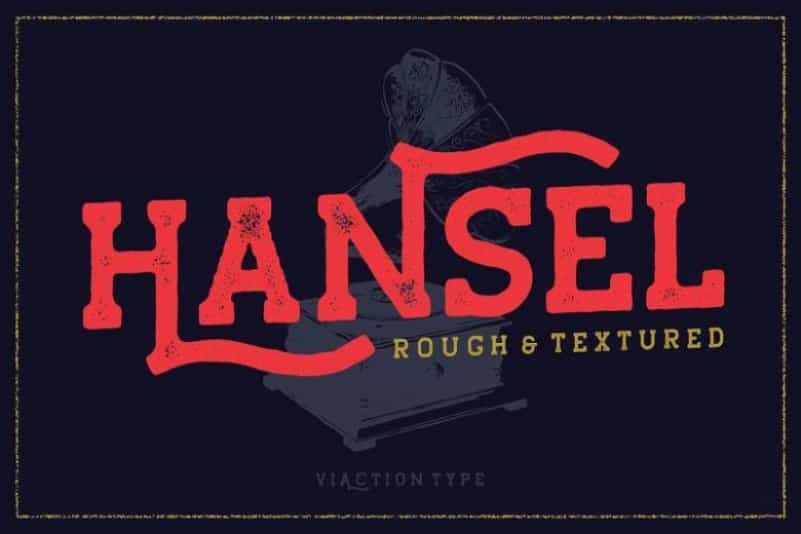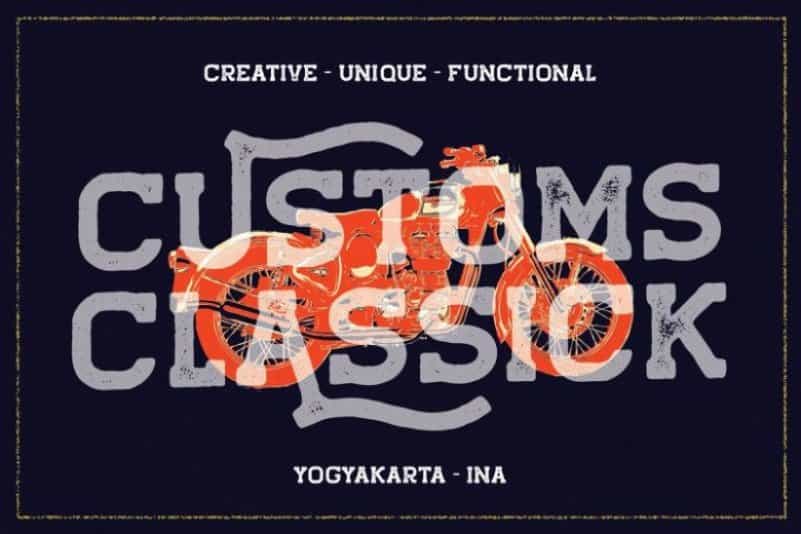
Introducing Hansel Font. Hansel is a slab serif with 2 styles rough & textured, good to be used in different products. Finished with the multilingual characters and stalistic alternates. It is the perfect fit for quote, clothing design, vintage logo, label, poster, packaging design and other designs.